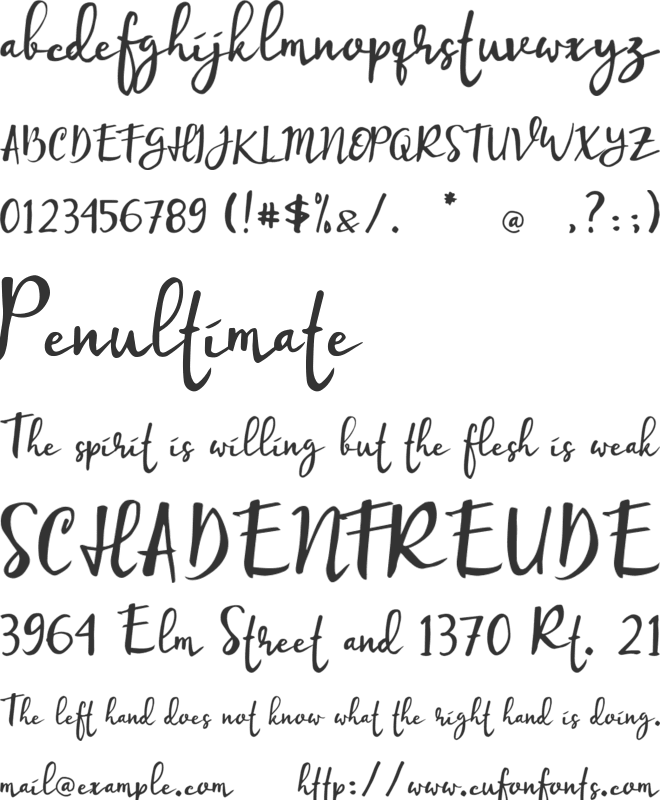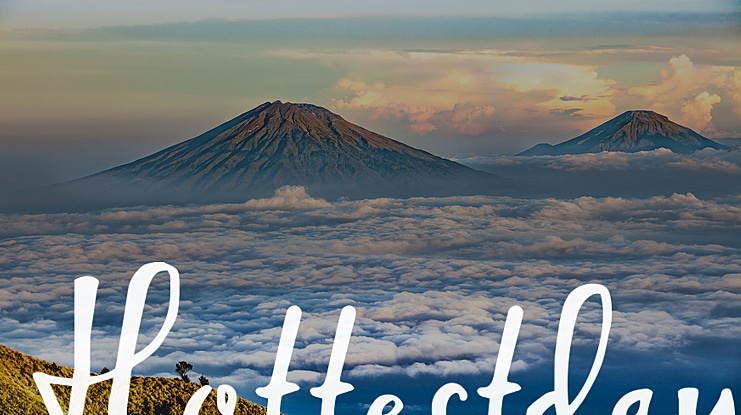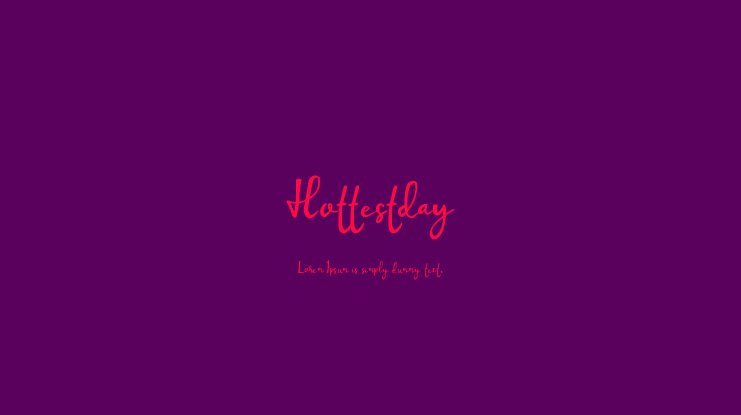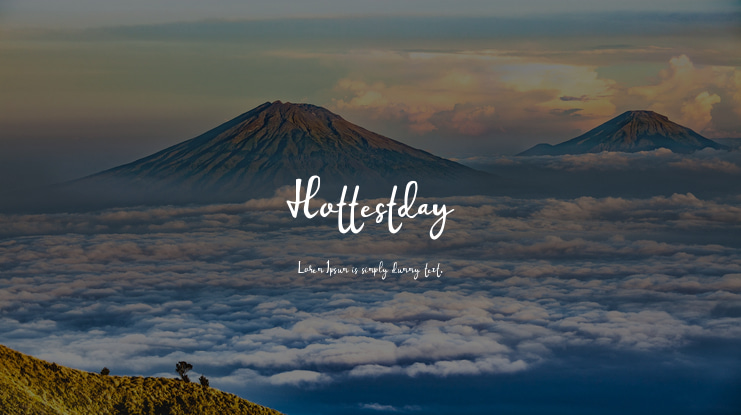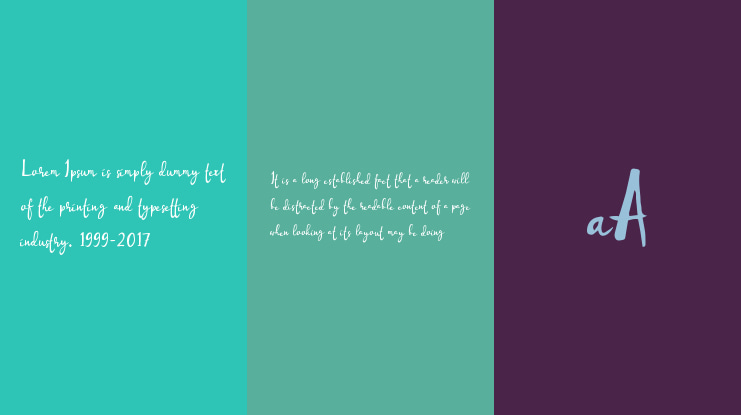
Hottestday Font
Hi everyone.. This is my font, was called Hottestday. A Hottestday is a handwritten script font, perfect used for branding, logos, broshures, wedding card and every other design which needs a handwritten touch. Enjoy it. Thank you..